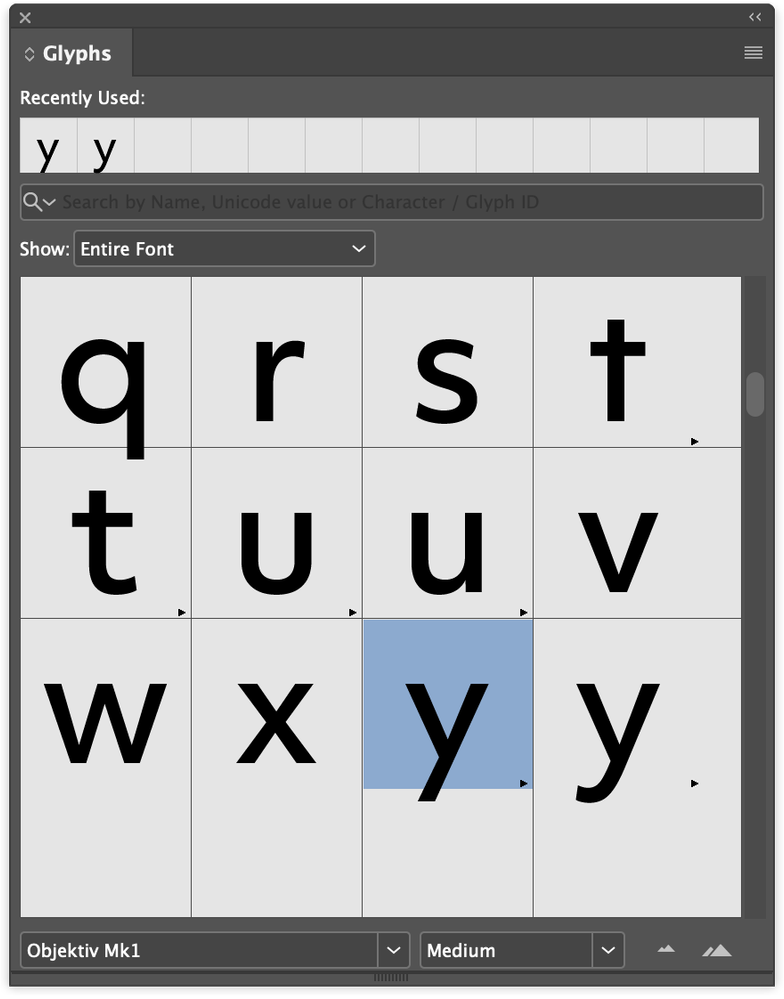
BUG: Adobe Fonts not displaying correctly in InDesign
What the heck happens here? InDesign displays fonts inaccurate, while Illustrator shows the right one. Please fix this, have to work.
Look here in the Glyph Panel, both versions are available: glyphs.png
Both are correct. This font has variations, different glyphs for the very same letter. You can change it by selecting the other one from the Glyph Panel. You can save that version you want into your paragraph or character style in the Opentype Sets.
Müsste mal die Schrift aktivieren, um das nachzuvollziehen.
Look here in the Glyph Panel, both versions are available: glyphs.png
As you see in the screenshot, other letters have variations too, like here u and t and others too.
sieht so aus, als würde InDesign die korrekte Ansicht der Schrift Objektiv Mk1 haben.
Jedenfalls dann, wenn die Schriftschnitte über Adobe Fonts aktiviert werden.
Die Vorschau auf Adobe Fonts stimmt mit dem Ergebnis in InDesign überein:
Objektiv MK1 Hayde-AdobeFonts.PNG